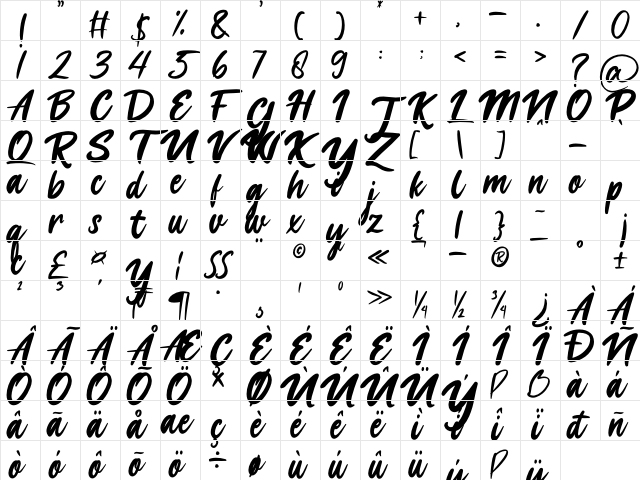
Cheese Cookies Regular Free Font
Cheese Cookies Regular
Designer: Muhamad Fikry Nuralif
Design Context for Cheese Cookies
Cheese Cookies is a composed and adaptable typeface that performs quietly and consistently across a wide range of design contexts.